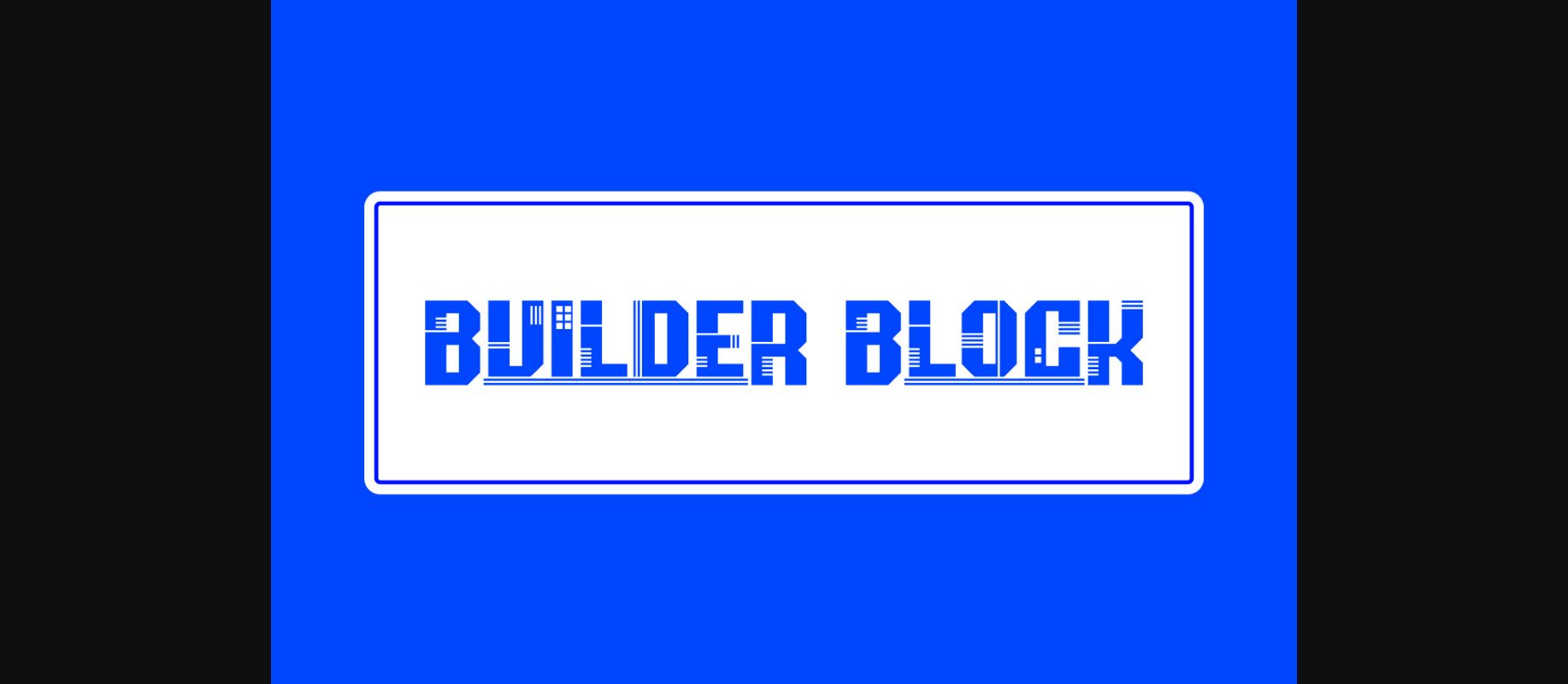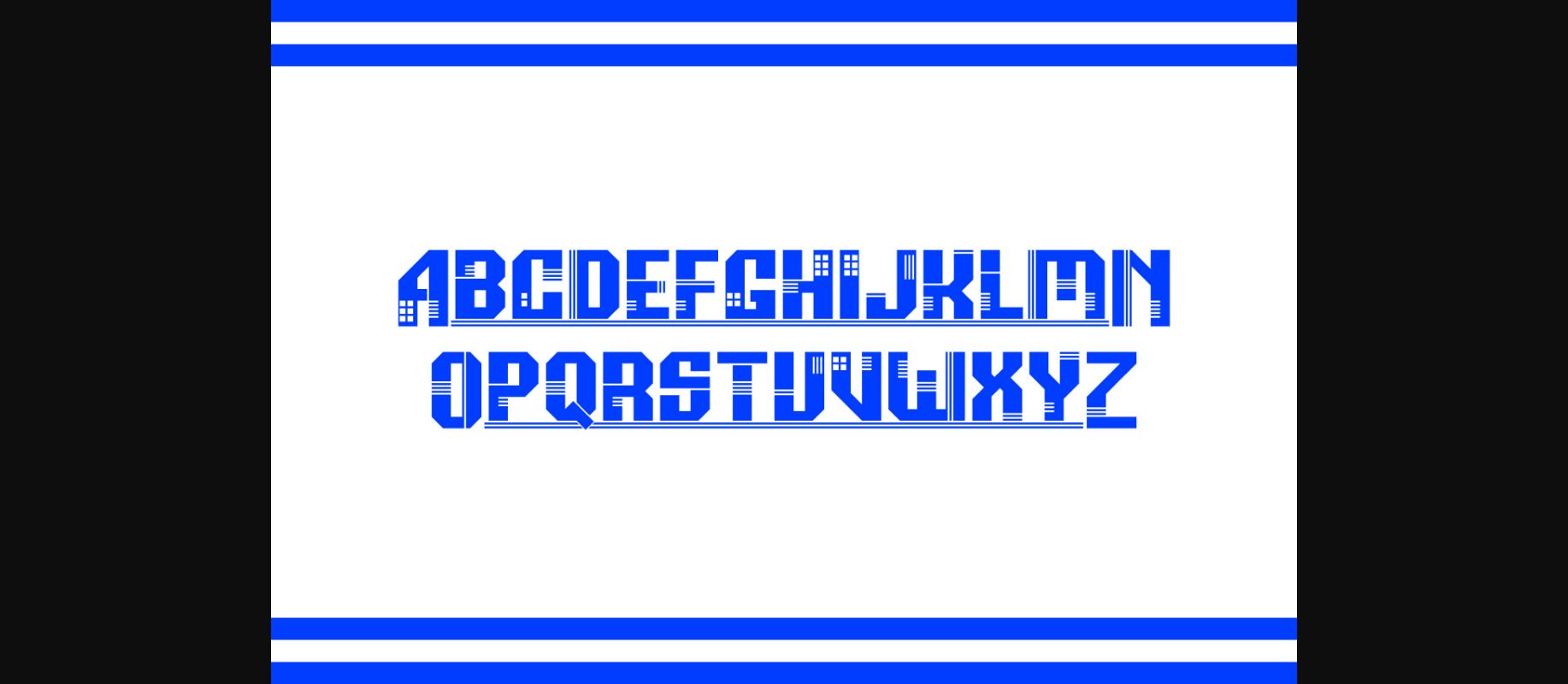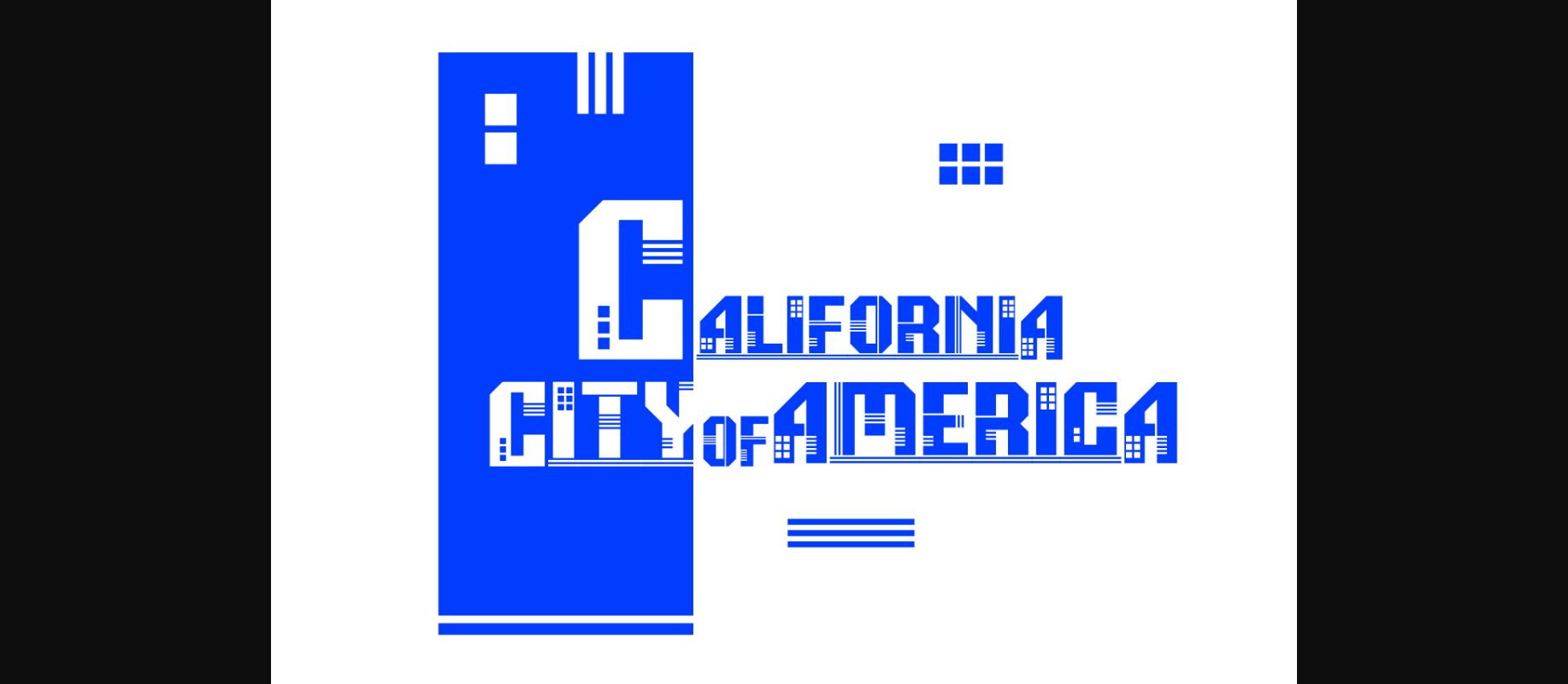
About Builder Block Font
Builder Block is a chic decorative font blending Gothic and modern aesthetics. Its bold style makes it perfect for movie titles, t-shirt designs, web layouts, and stylish posters. With 96 glyphs and 95 characters, it exudes a construction-inspired vibe.